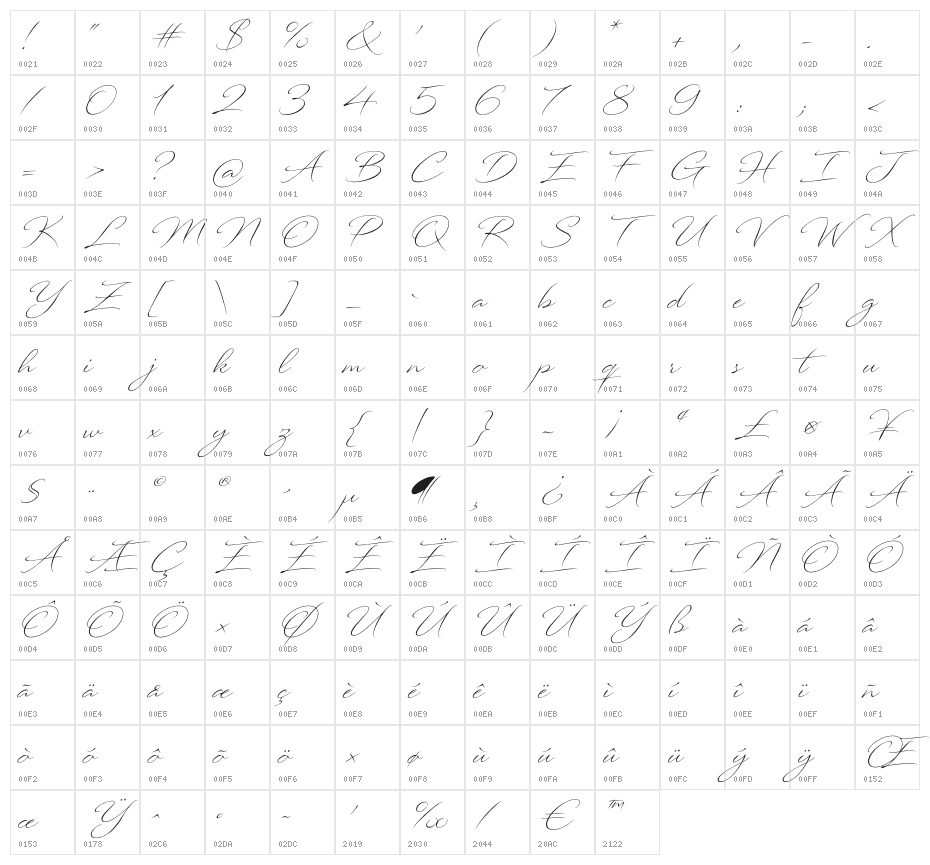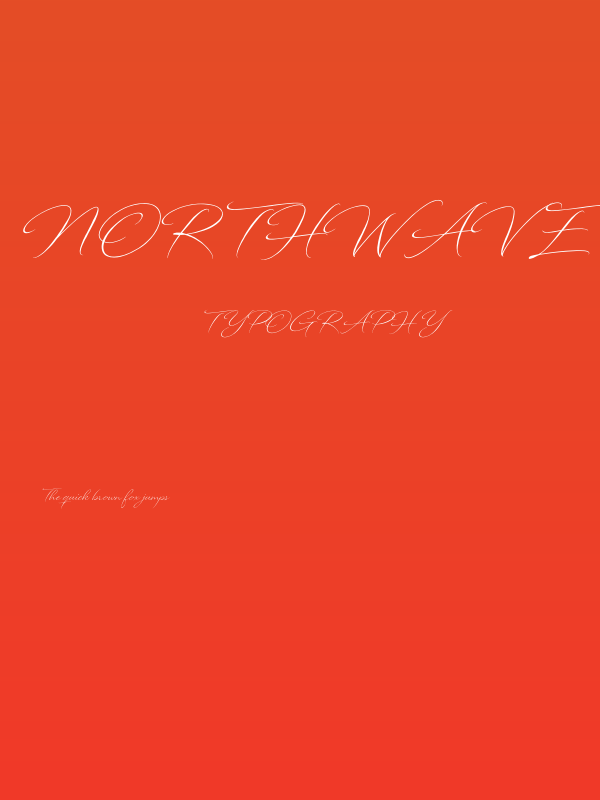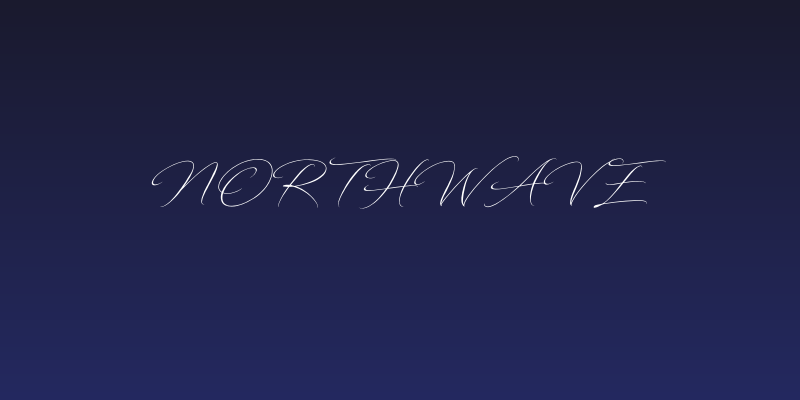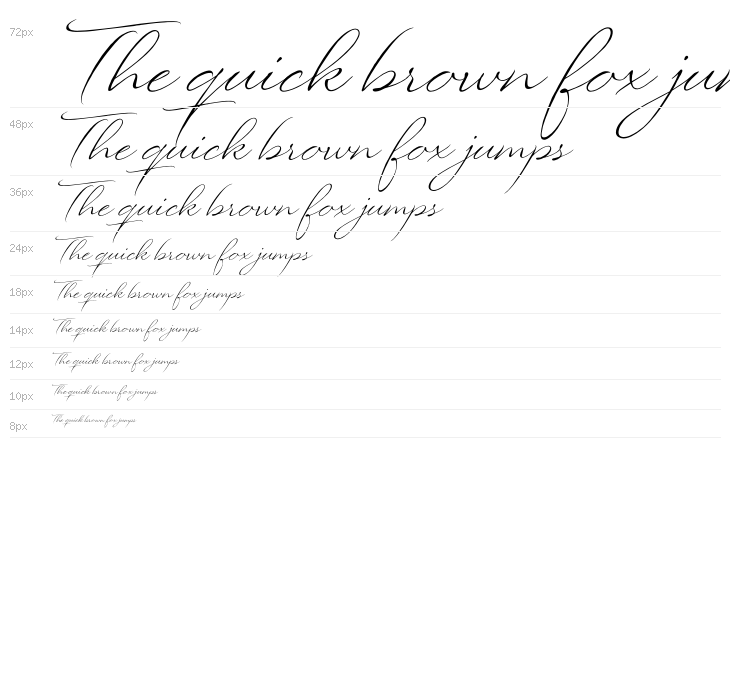
NorthWave Font
NorthWave Description
This elegant script font features flowing, interconnected letters that mimic the fluidity of cursive handwriting. The uppercase letters are tall and graceful, with sweeping ascenders and descenders that add a touch of sophistication. The lowercase letters maintain a consistent slant, enhancing the font's overall harmony and rhythm. The numerals are stylishly curved, complementing the alphabet's aesthetic. Special characters are thoughtfully designed to match the font's elegant style, making it suitable for a variety of creative applications.
| Overall Style | Elegant |
| Use Case | Logos, Invitations, Decorative text |
| Proposed Projects | Ideal for wedding invitations, elegant branding, personal stationery, and decorative projects. |